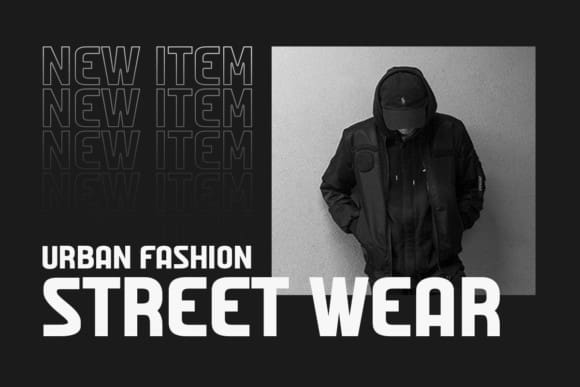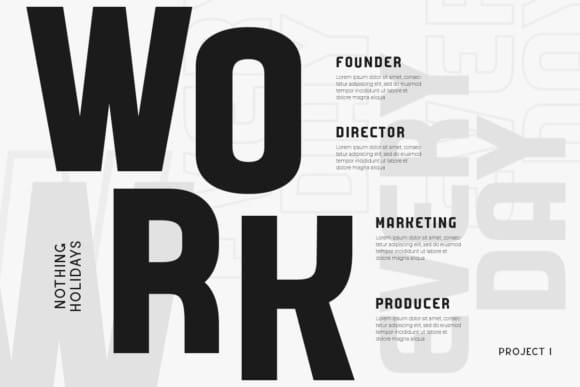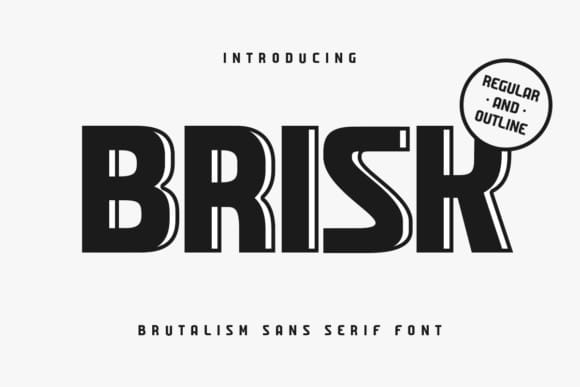
Brisk Font
Brisk Font a Modern Sans serif font is prepared specially for action, bold, and sports design needs. A new Sans serif font that we created specially for the Headline, Title, and more stand-out typography needs, with an extra outline that will add your variations. It’s so perfect for adding your style and headline overview. And especially for Brisk font, we crafted for futuristic style and modern feels so enjoy creating any project that will show your main idea out.